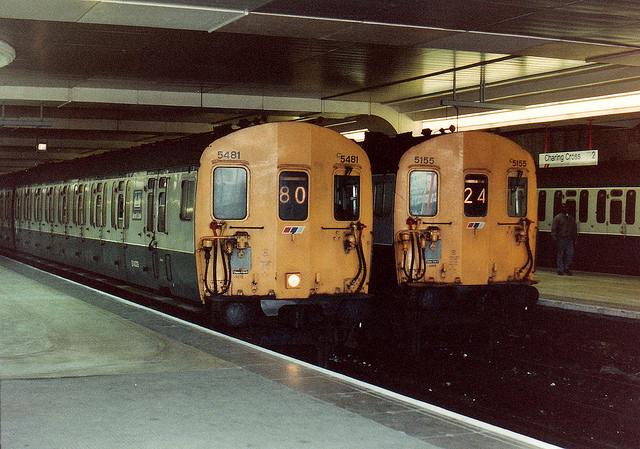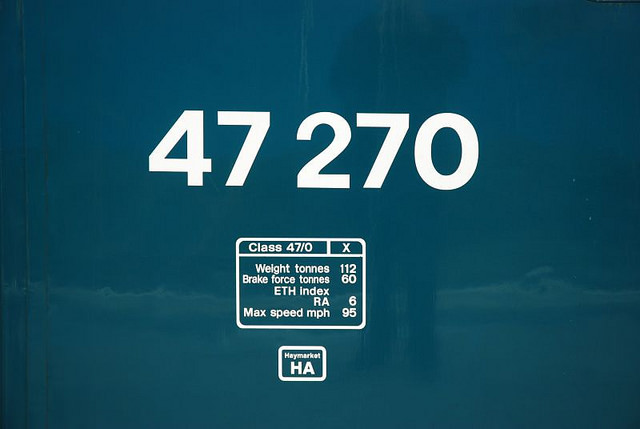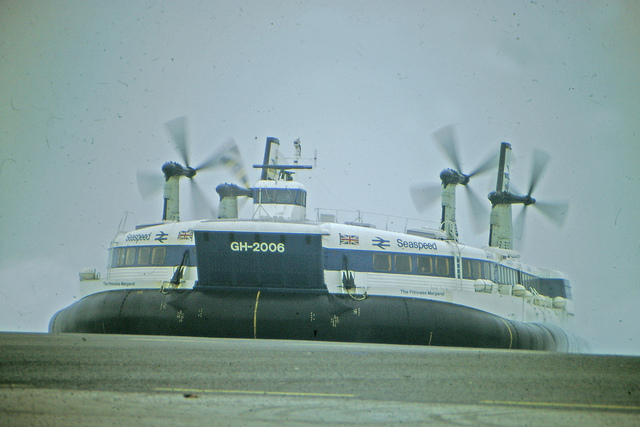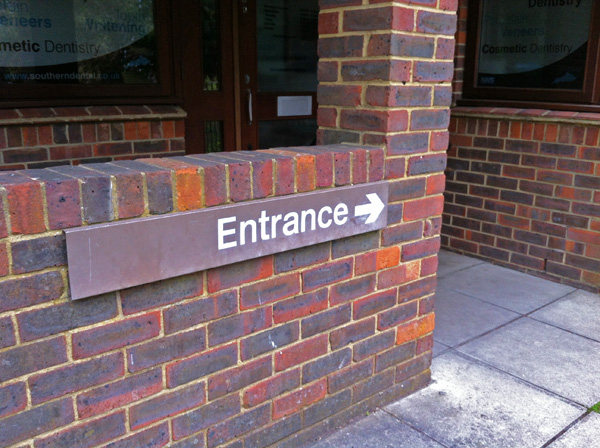
On Line Typeface (Rail Alphabet typeface, Margaret Calvert/Jock Kinneir, UK)
When British Rail unveiled its comprehensive corporate identity in 1964, one of the key elements which made it work was a new typeface. It was called Rail Alphabet and it has subsequently proved to be the most successful and long-lasting element of the corporate identity.
BR’s “rail blue” corporate identity, which was officially applied from 1966 onwards, was one of the most comprehensive ever adopted by any British transport company, and indeed probably any transport company (you can read two earlier entries about it here and here). It was designed to wipe out the existing hotchpotch of styles and motifs which had graphically illustrated the confused nature of the business from its creation in 1948 until that point. British Railways (as it was publicly known until 1966) even had multiple typefaces in use on its signage and its trains. Most frequently seen was Gill Sans, a chilly all-upper case typeface dating from before the second world war and inherited from the London and North Eastern Railway (read more about it here). This bossy and sometimes difficult typeface seemed increasingly out of place in the more informal 1960s, as longstanding social norms were challenged or abandoned. Meanwhile, a condensed (narrow) rectangular font served for train numbers on many locomotives. And I’m afraid I can’t think of any word other than ‘ugly’ for that one.
Rail Alphabet was the answer to these challenges. It was a mixed upper and lower case typeface, instantly looking more friendly than Gill Sans. It was well proportioned, with nicely rounded ‘0’s, ‘o’s and ‘O’s for instance – unlike the rectangular locomotive lettering. It would go on to be applied everywhere across the British Rail network, including the company’s road vehicles, hovercraft and ships. Because this blog doesn’t feature hovercraft very often, here is Rail Alphabet on a cross-channel hovercraft:
British Rail operated cross-channel hovercraft like this one under the Seaspeed brand between 1966 and 1981. Photo by 70023venus2009 [CC BY-ND 2.0] via this flickr page
It wasn’t actually British Rail’s first go at a new typeface for the rail blue corporate identity. The company had been much impressed by the Transport typeface designed by Margaret Calvert and Jock Kinneir as part of a comprehensive road network resigning programme launched in the 1960s. British Railways tried out signage using Transport at Coventry station (as detailed here), but it wasn’t entirely satisfactory.
As Calvert would later explain, the problem was that Transport was designed to be quickly assimilated by drivers as road signs were approached at speed. In a station environment, where there was more time to read signage, speed of interpretation was no longer the key concern. Calvert and Kinneir were asked to design a typeface specifically for the railway, and so it was that this pair of designers ended up defining the ‘feel’ not just of Britain’s roads, but its railways (and later, its airports too). If anyone can lay any claim to having branded Britain in the post-war period, it is surely Calvert and Kinneir. No-one else has come close to designing so much of what creates the everyday experience of the appearance of Britain’s public realm.
The result of Calvert and Kinneir’s assessment of the needs of a typeface at railway stations as opposed to one being designed for roads is that Rail Alphabet’s letters are slightly heavier and more closely spaced than those of Transport, with less exaggerated tails on the letters. It is similar to Helvetica, but distinctively different, though it’s hard to say exactly why. It’s certainly more tightly spaced, and I think the width of the letter strokes is a little more consistent throughout.
One of the best places to see Rail Alphabet was on the large “Solari” departure boards at stations. This is Charing Cross in 2002. The Rail Alphabet departure board dates from British Rail days, while later signage (with blue backgrounds) is in Railtrack’s Brunel typeface. Photo by James Gibbon at en.wikipedia (Own work) [GFDL or CC-BY-SA-3.0], via Wikimedia Commons
Deliberately, Rail Alphabet is neither showy nor shouty. Calvert described it as “low-key”, intended to stand out from the commercial signage at stations which was more flamboyant. “It’s ordinary,” she said. “People think nobody designed it, because it’s ordinary.”¹ Rail Alphabet is all about the message, not the medium. It is designed with simplicity in mind, to give information without the character of the lettering distracting from or overwhelming the message being conveyed. The mix of upper and lower case text was definitely easier to take in than the bossy all-upper case Gill Sans it replaced. As such it was the perfect typeface for British Rail, which was at the time trying to project a new image of low-key, straightforward competence, at some remove from its previous reputation for scandalous financial mismanagement and a confused strategic vision.
The full version of Rail Alphabet was detailed in British Rail’s corporate design manual, along with the tiling system that allowed the letters to be correctly spaced in relation to each other – a key concern given that signs were quite likely to be put together by hand; these were the days before everyone had access to desktop computers with installed fonts.
Used alongside Rail Alphabet was a set of standard pictograms which for decades defined the look of British Rail’s stations (you can see the full set here, in BR’s Corporate Identity Manual). While the road sign pictograms that accompanied Transport on Britain’s road signs were designed by Calvert, I’ve yet to absolutely confirm whether those that accompanied Rail Alphabet were too, or whether they were the work of Design Research Unit, which created BR’s double arrow logo.
Signage at stations was almost exclusively in black text on white backgrounds. It was a significant change from the Gill Sans signage it ousted, which had featured white text on darker coloured backgrounds. There’s no convincing evidence that one is better than the other, and for every study I’ve read finding that dark text on light backgrounds is more legible than light on dark, I’ve read another that has found the exact opposite. Only a cynic would note that it keeps sign manufacturers busy if transport operators are kept in a state of confusion as to which is better, and regularly swap between one and the other.
8. Then there’s Jock Kinneir and his “Health Alphabet”, according to NHS England wayfinding guidance (2005)!
So, Rail Alphabet has in fact got two names! Context is everything!
I do prefer the original BR Rail Alphabet to be honest the slightly thicker characters are better.